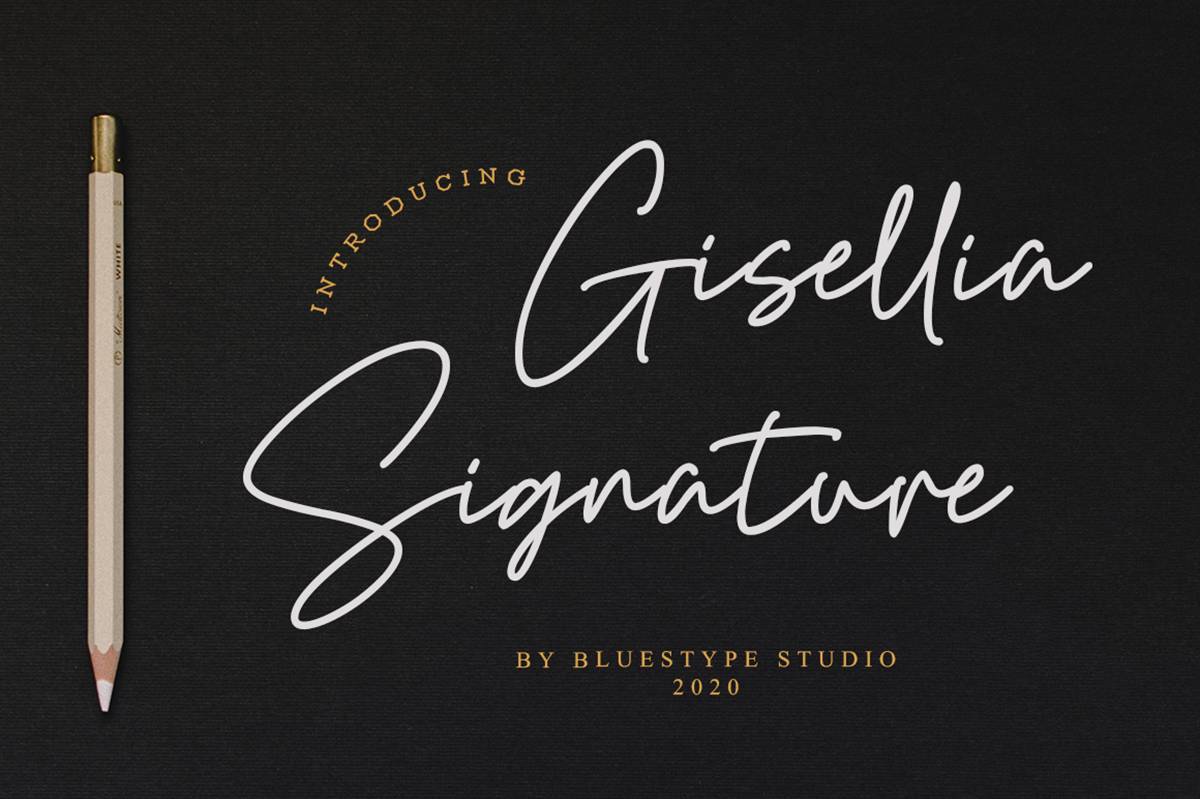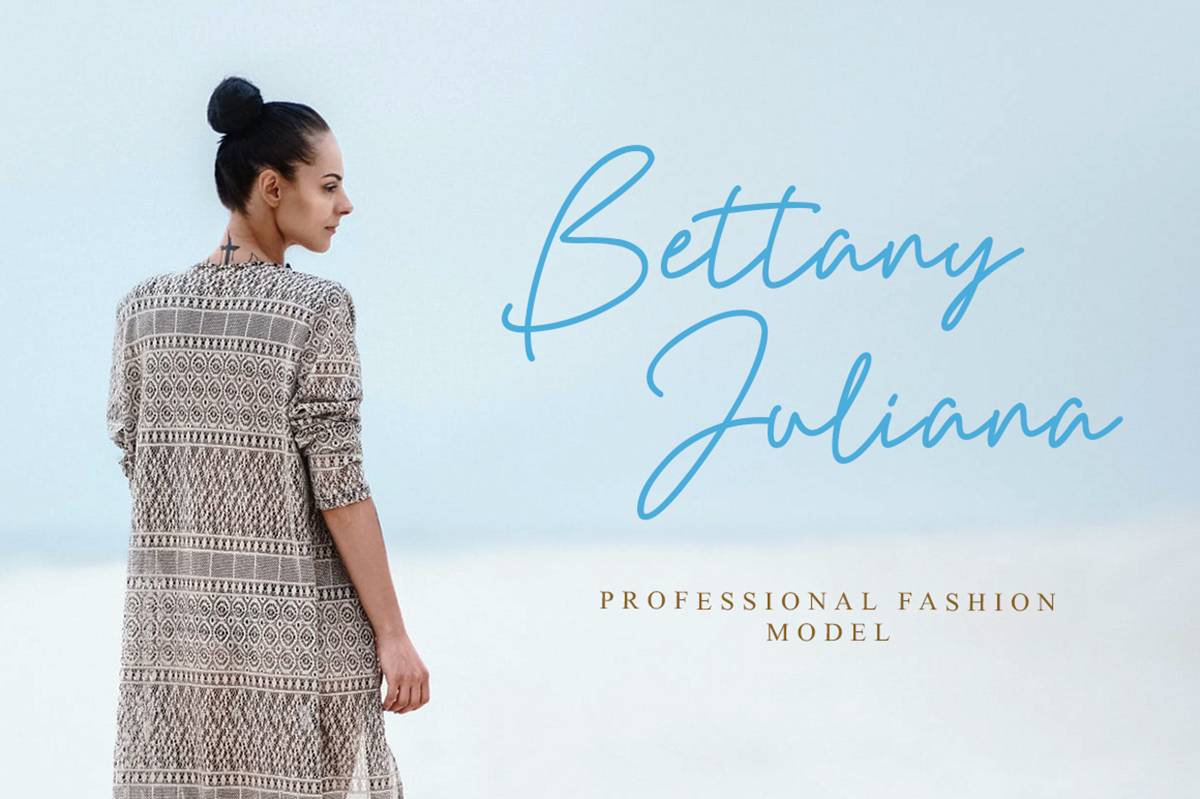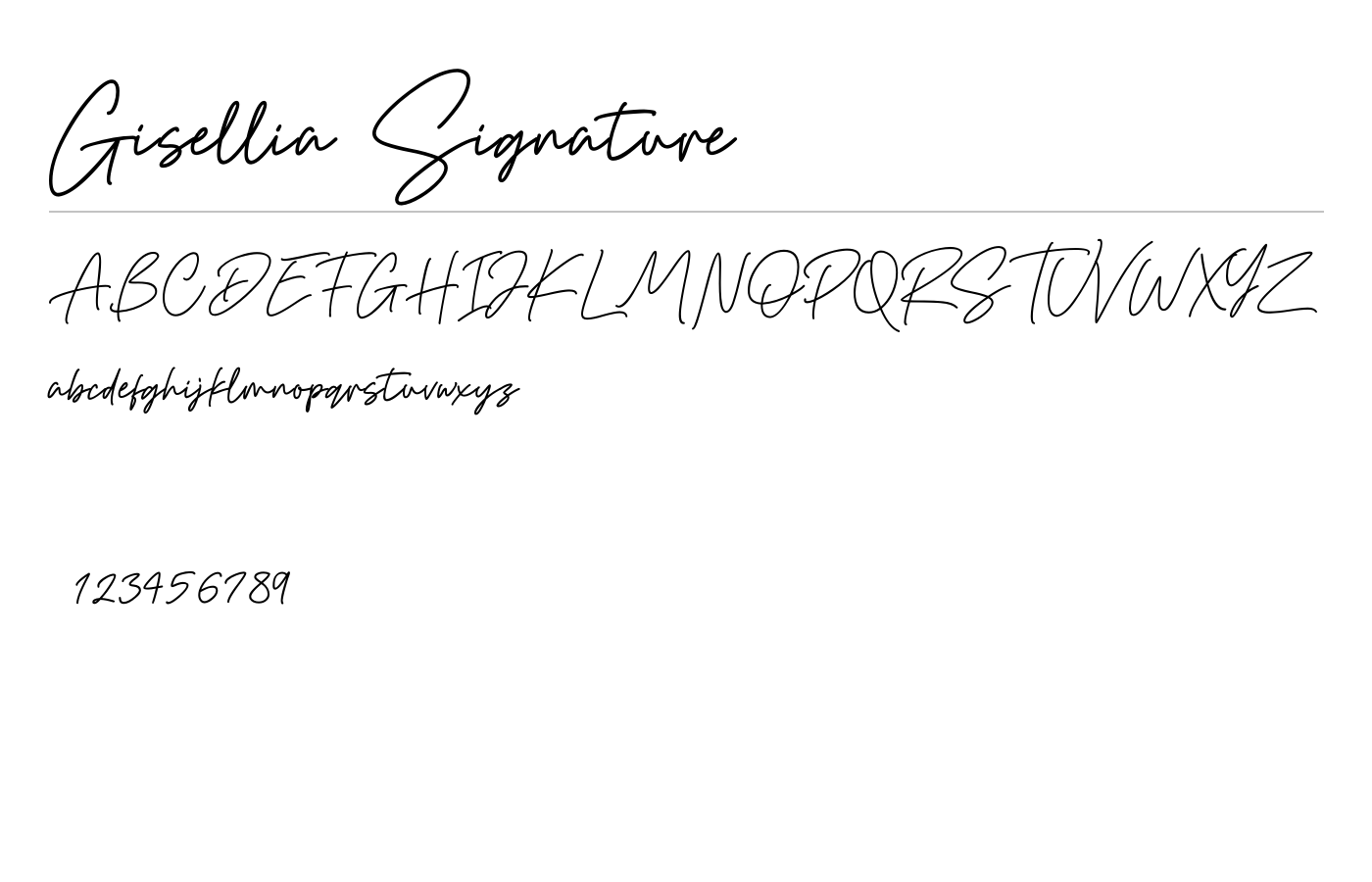
Gisellia Signature is a slender, elegant script font that mimics natural handwritten signatures with its flowing, delicate strokes and casual, yet refined style. Its light weight and airy spacing make it perfect for adding a personal, sophisticated touch to branding, invitations, and fashion-related designs where a sense of authenticity and charm is desired. This font works best in headlines, logos, and decorative text where its graceful character can truly stand out.
Gisellia Signature Font
About Gisellia Signature Font